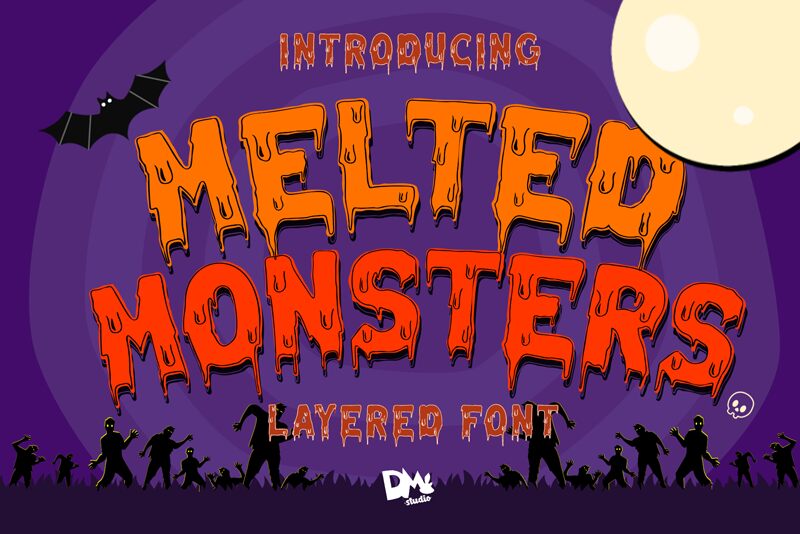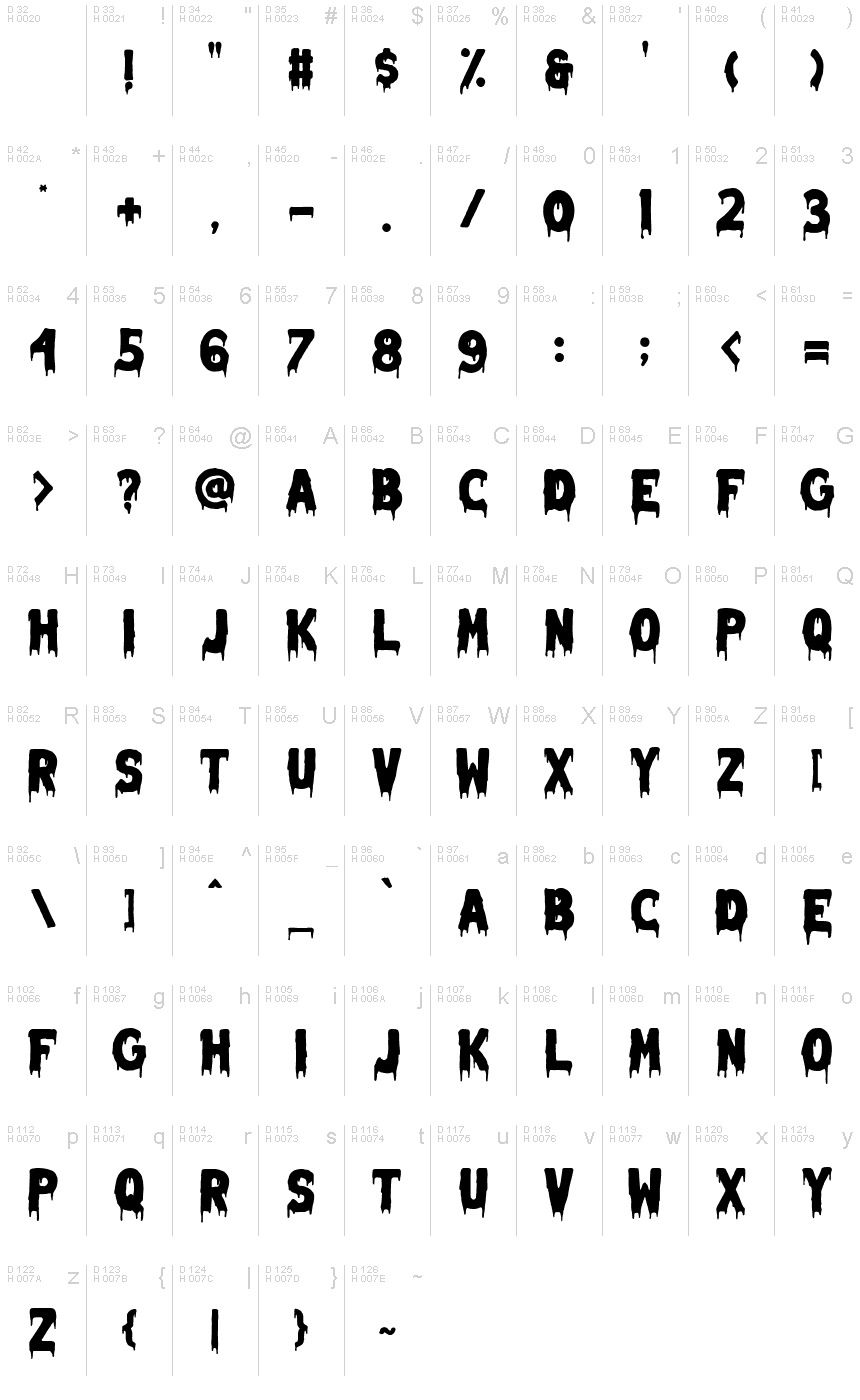
Melted Monster
This enchanting font will turn any creative idea into a true standout.
Perfect fit for all of your logos, branding, social media, etc.
Get creative with its unique playfulness, and use it to brighten up any crafting project!
Melted Monster